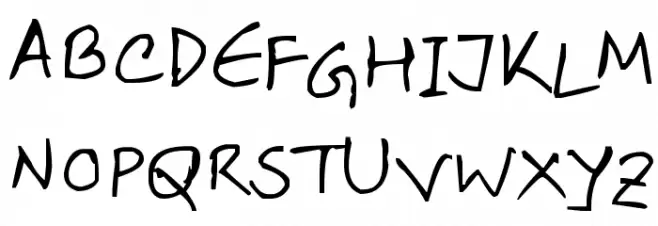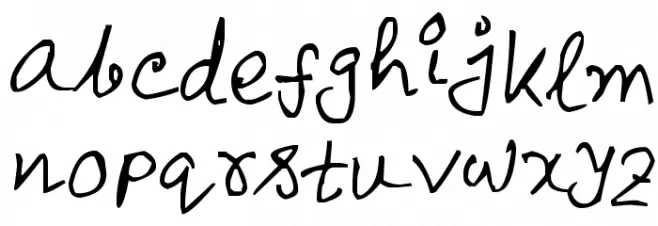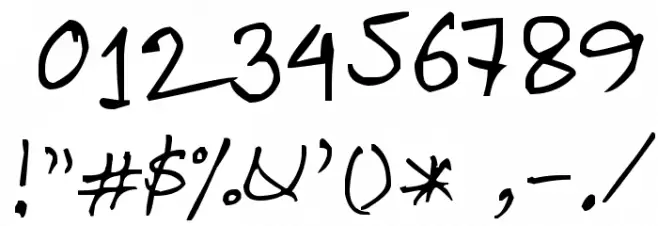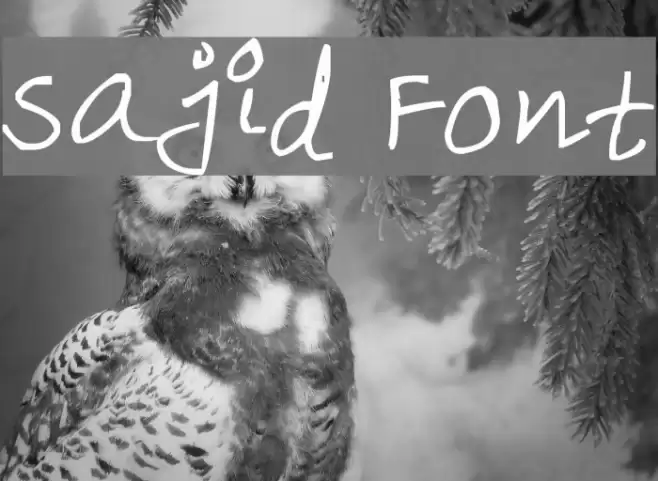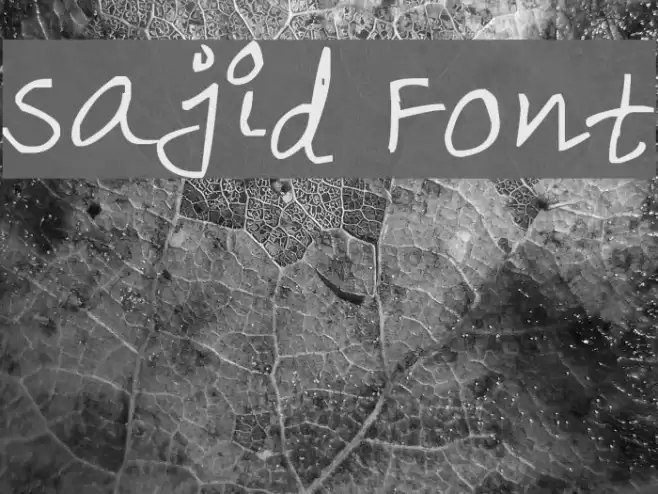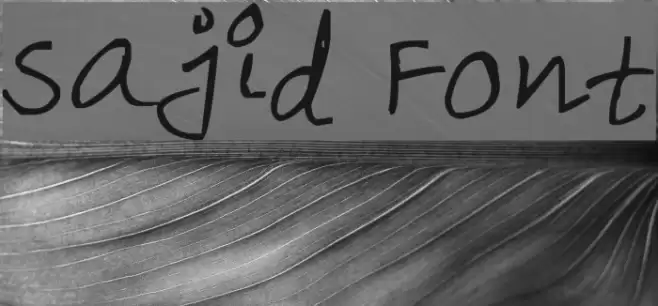
Sajid
This font features a casual and playful handwritten style, characterized by its irregular strokes and dynamic flow. The letters have a natural, organic feel, with varying stroke widths that add a sense of movement and personality. The uppercase letters are bold and slightly slanted, while the lowercase letters maintain a consistent, lively rhythm. Numbers and special characters follow the same energetic style, making the font versatile for creative projects. The overall appearance is informal and friendly, suitable for designs that aim to convey warmth and approachability.
A playful, handwritten font with dynamic strokes and an informal style.
- Proposed Projects: Ideal for greeting cards, invitations, personal branding, and casual social media graphics.
- Overall Style: Casual
- Use Case: Headlines, Personal projects, Informal communications